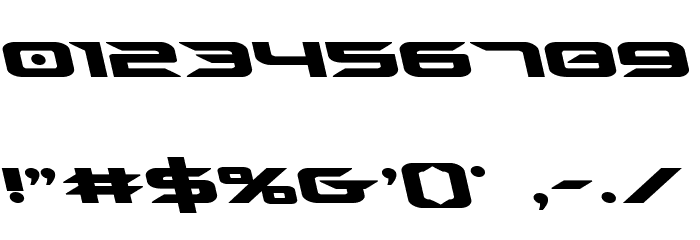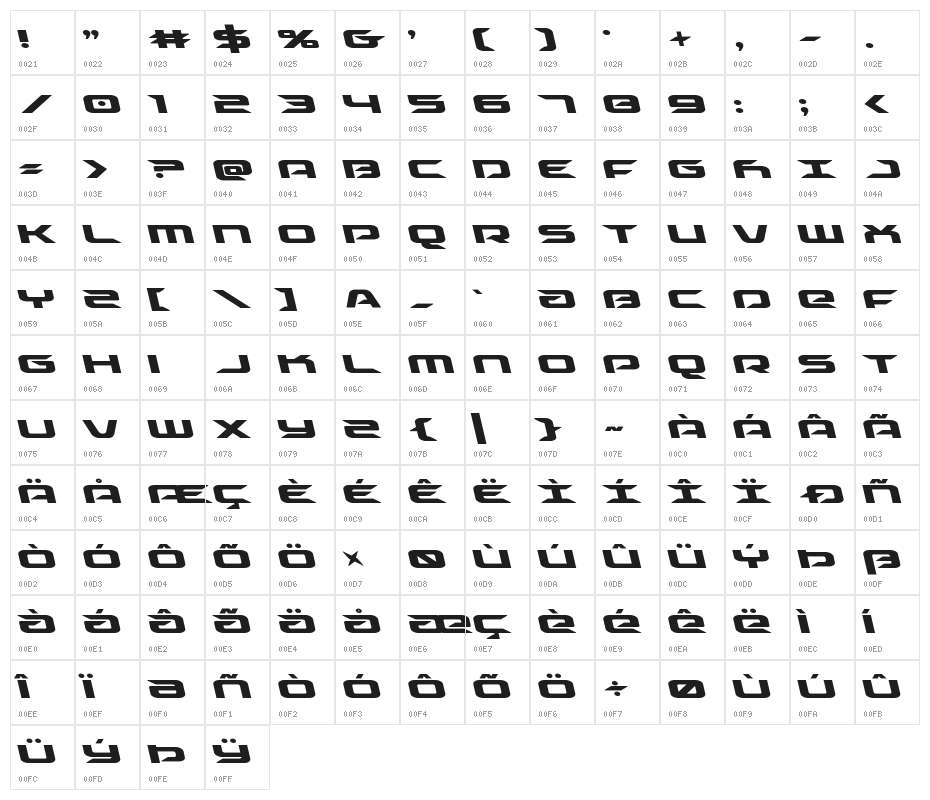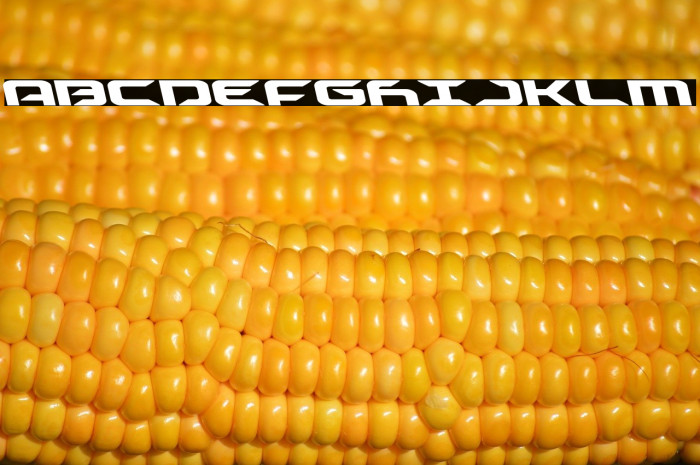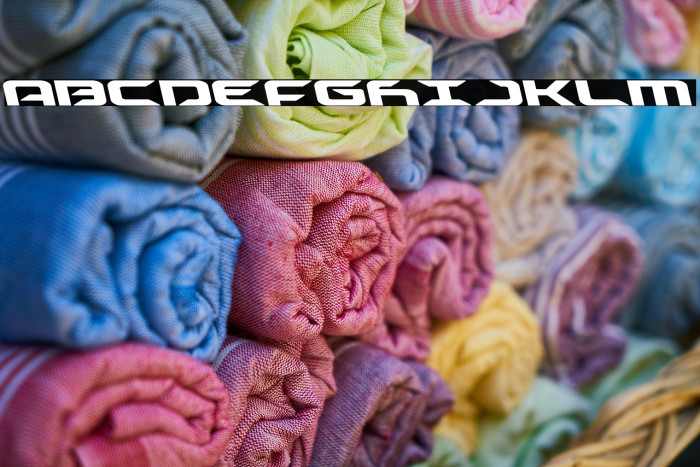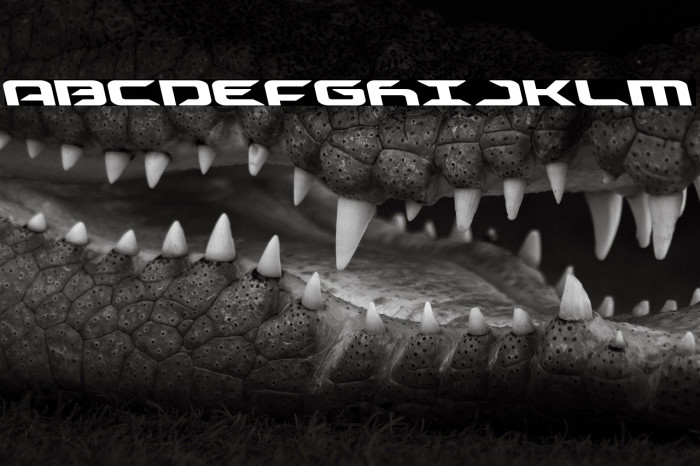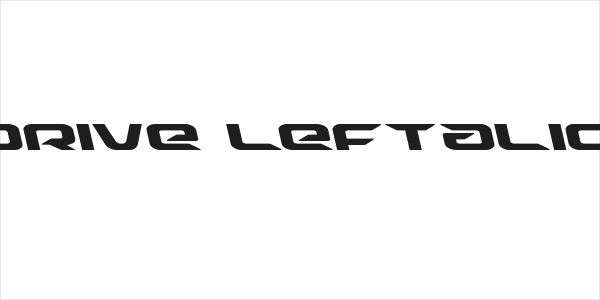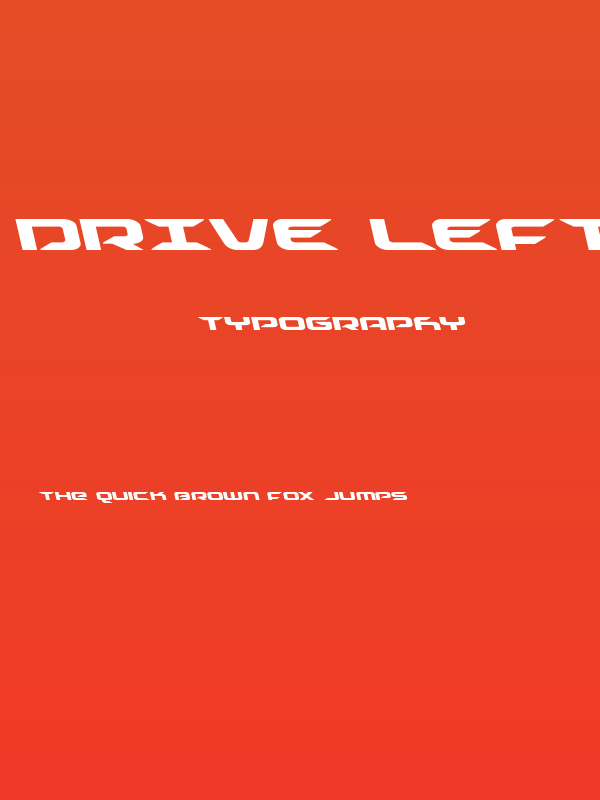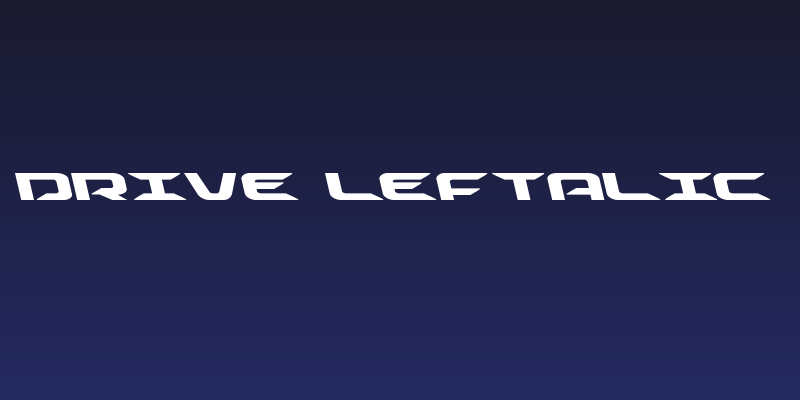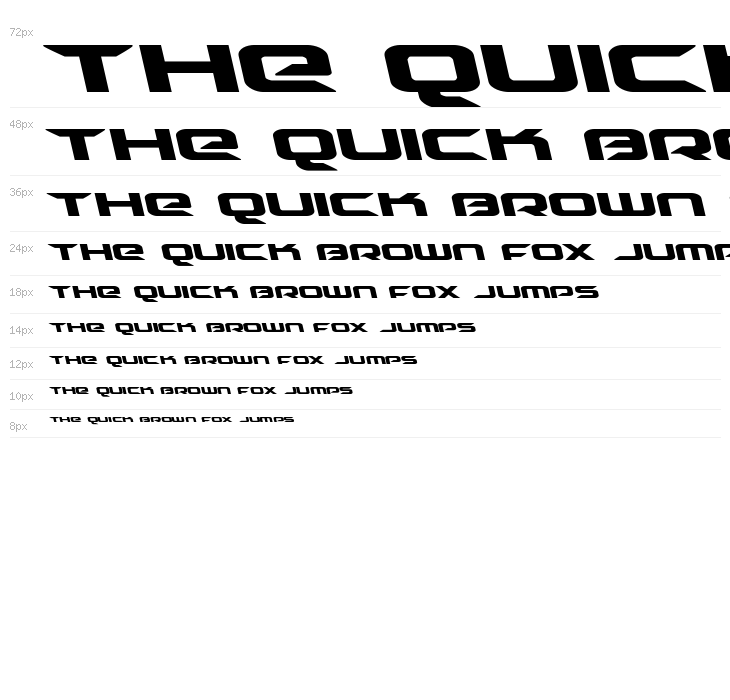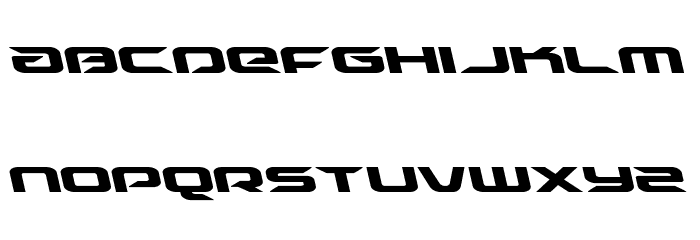
Drive Leftalic Font
Drive Leftalic Description
This font features a bold and futuristic design with sharp, angular edges and a distinct slant to the left, giving it a dynamic and forward-moving appearance. The characters are tightly spaced, enhancing the compact and cohesive look. The uppercase and lowercase letters maintain a consistent style, with the lowercase mirroring the uppercase in form. The numerals and special characters follow the same angular and bold aesthetic, ensuring uniformity across all glyphs. This font's unique style makes it stand out, ideal for projects that require a modern and edgy feel.